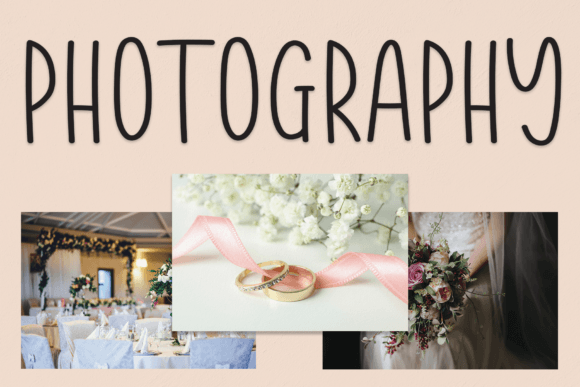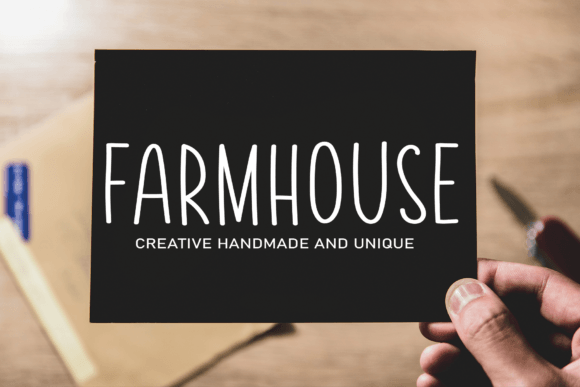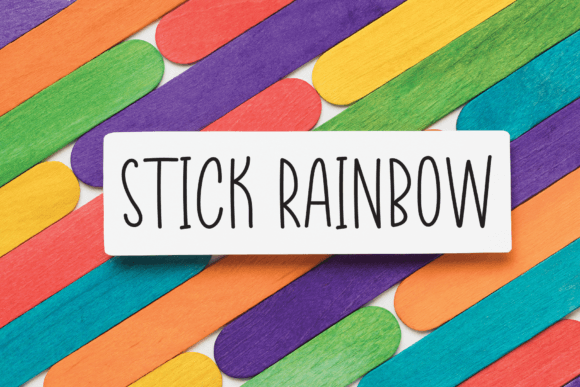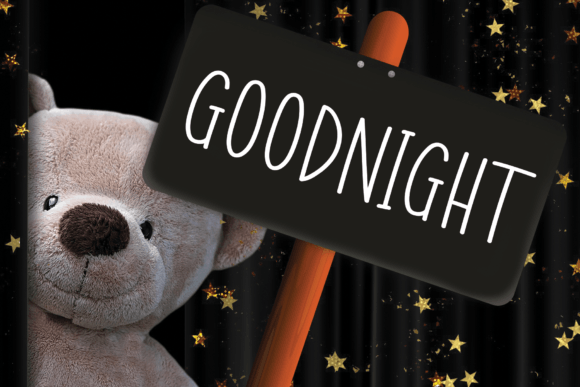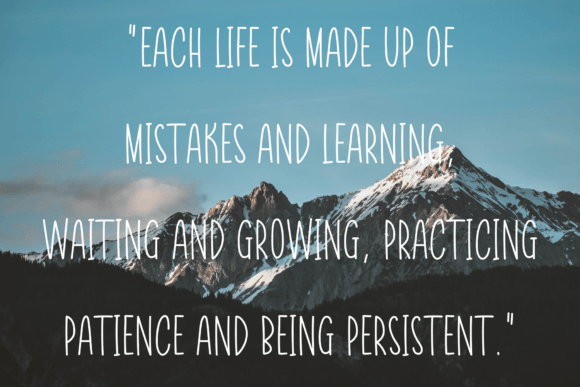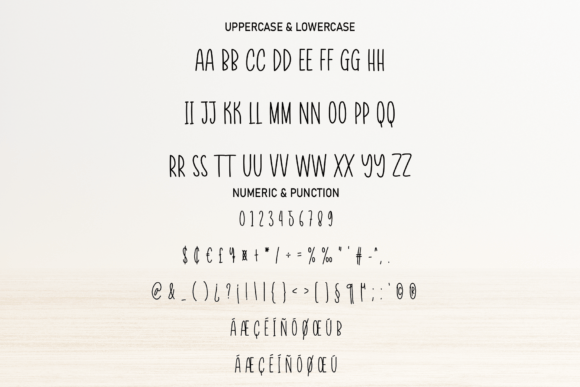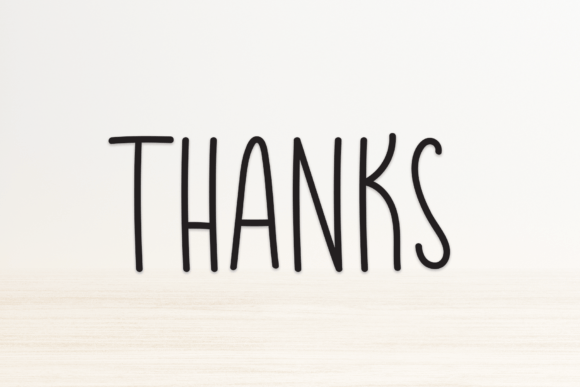
Simple and Minimalis Font
About Simple and Minimalis Font
“Simple and Minimalis” is a charming and relaxed handwritten font that exudes a sense of fun and informality. Whether you’re applying it to crafting, digital design projects, presentations, or crafting personalized greeting cards, it’s the perfect choice to infuse your creative projects with a touch of playfulness.
The “Simple and Minimalis” font has been thoughtfully crafted to embody a carefree and laid-back aesthetic, making it a versatile option for a wide range of applications. Its casual style lends itself well to various creative projects, allowing you to add a sense of light-heartedness and character to your work.
For crafters, “Simple and Minimalis” can be an excellent choice when adding text to handmade items like custom t-shirts, tote bags, or personalized gifts. Its playful appearance can make your creations feel more unique and engaging.
In the digital design realm, this font can be used to introduce a touch of informality and friendliness to your graphics. Whether you’re designing social media posts, blog graphics, or digital illustrations, its relaxed vibe can make your content feel more approachable and relatable.
Presentations can also benefit from “Simple and Minimalis,” especially when you want to break away from the typical formal fonts and create a more engaging and memorable visual experience. It can add a dash of creativity and charm to your slides, helping your audience connect with your message.
When crafting greeting cards or invitations, “Simple and Minimalis” imparts a sense of joy and informality to your words, making your cards feel more heartfelt and personal. It’s an excellent choice for special occasions and events where you want to convey a sense of warmth and sincerity.
In essence, “Simple and Minimalis” is a playful handwritten font that seamlessly blends fun and informality. Its versatility makes it suitable for a multitude of creative purposes, from crafting to digital design, presentations, and greeting card making. With “Simple and Minimalis,” you can inject a dose of whimsy into your projects, making them more engaging and enjoyable for your audience.